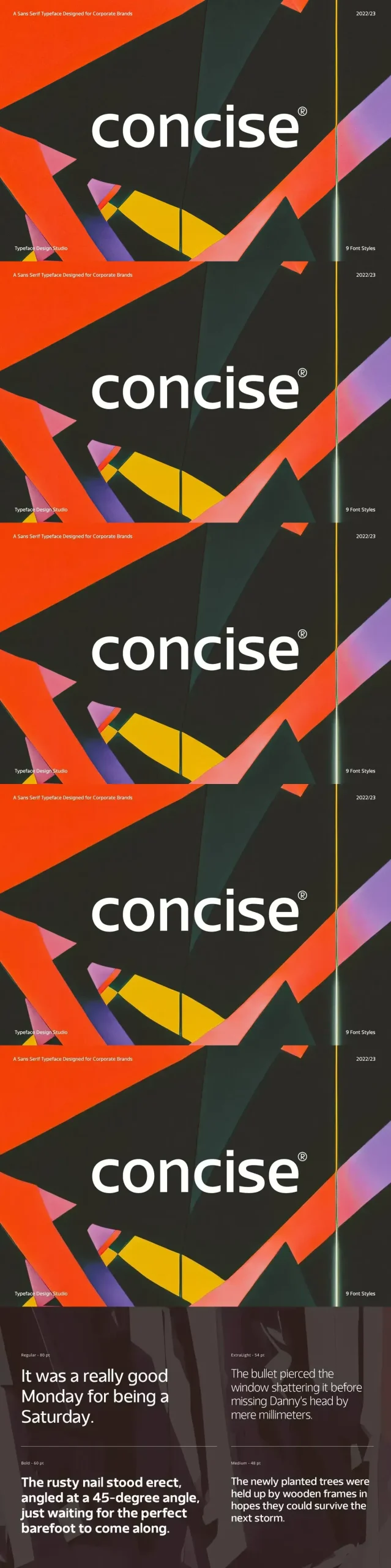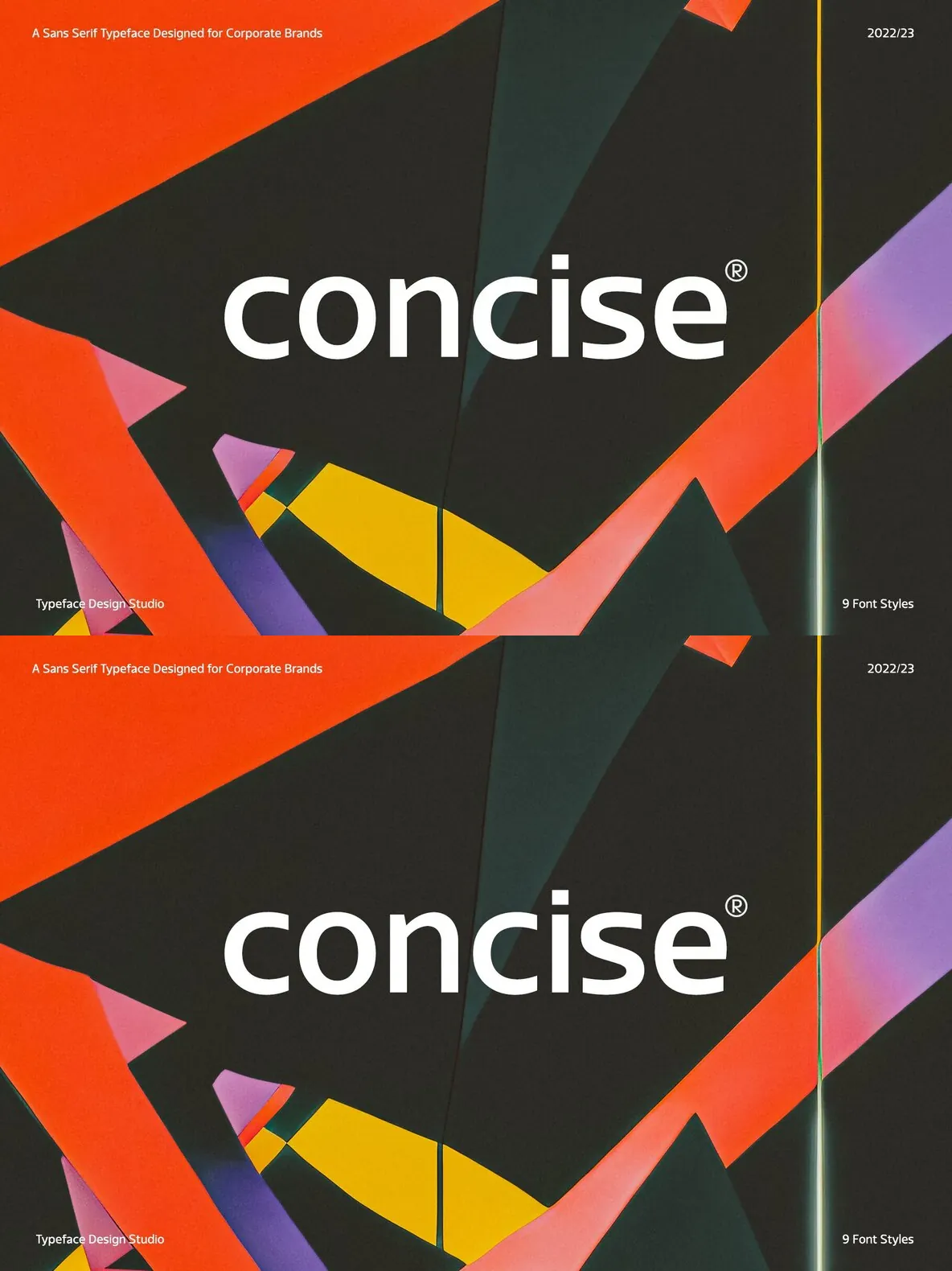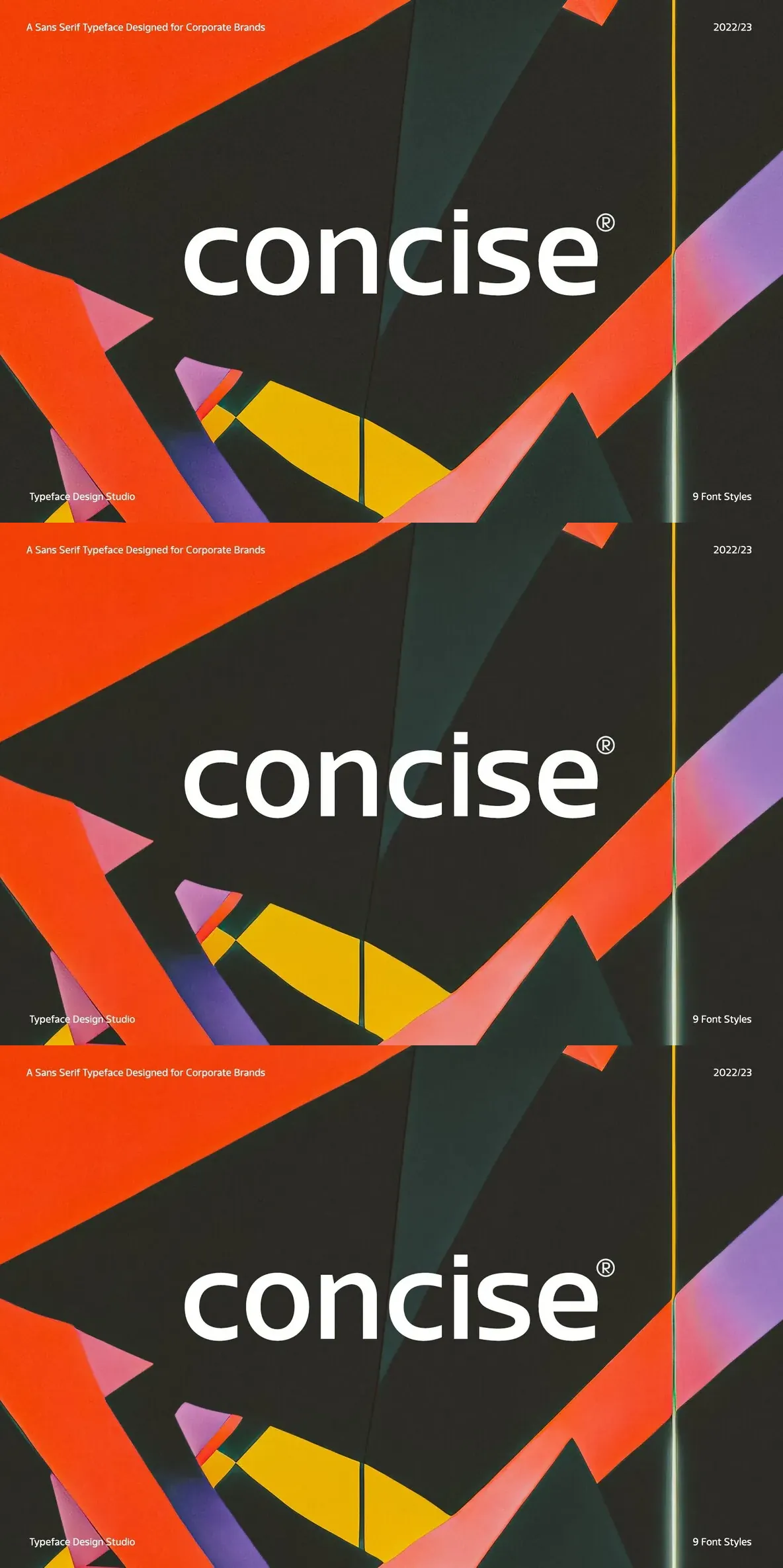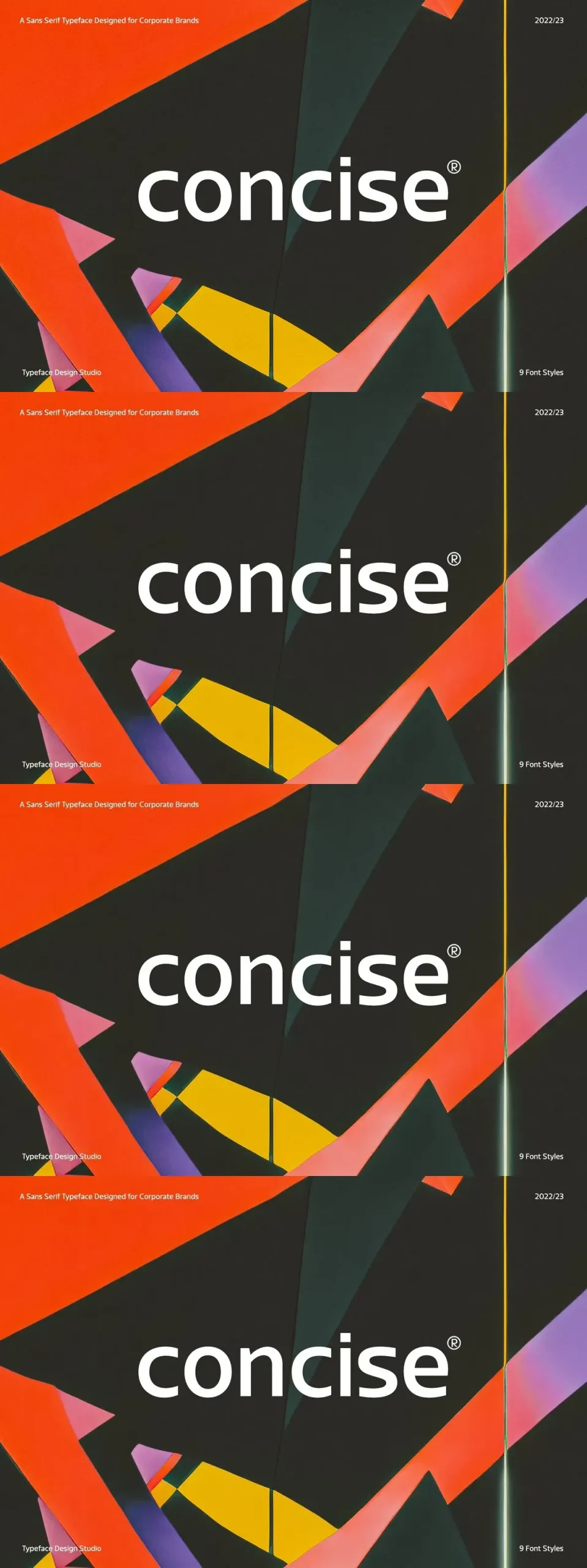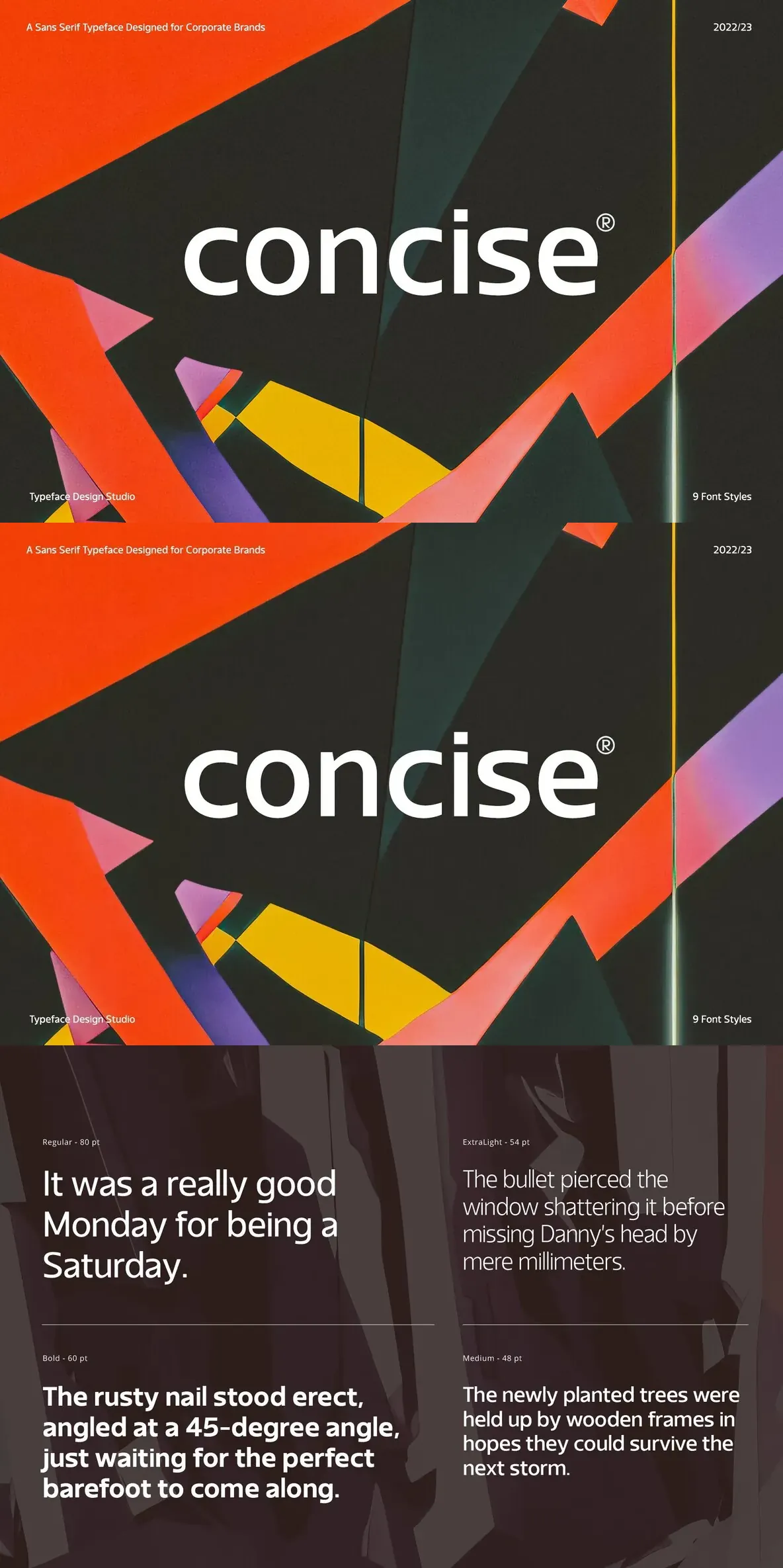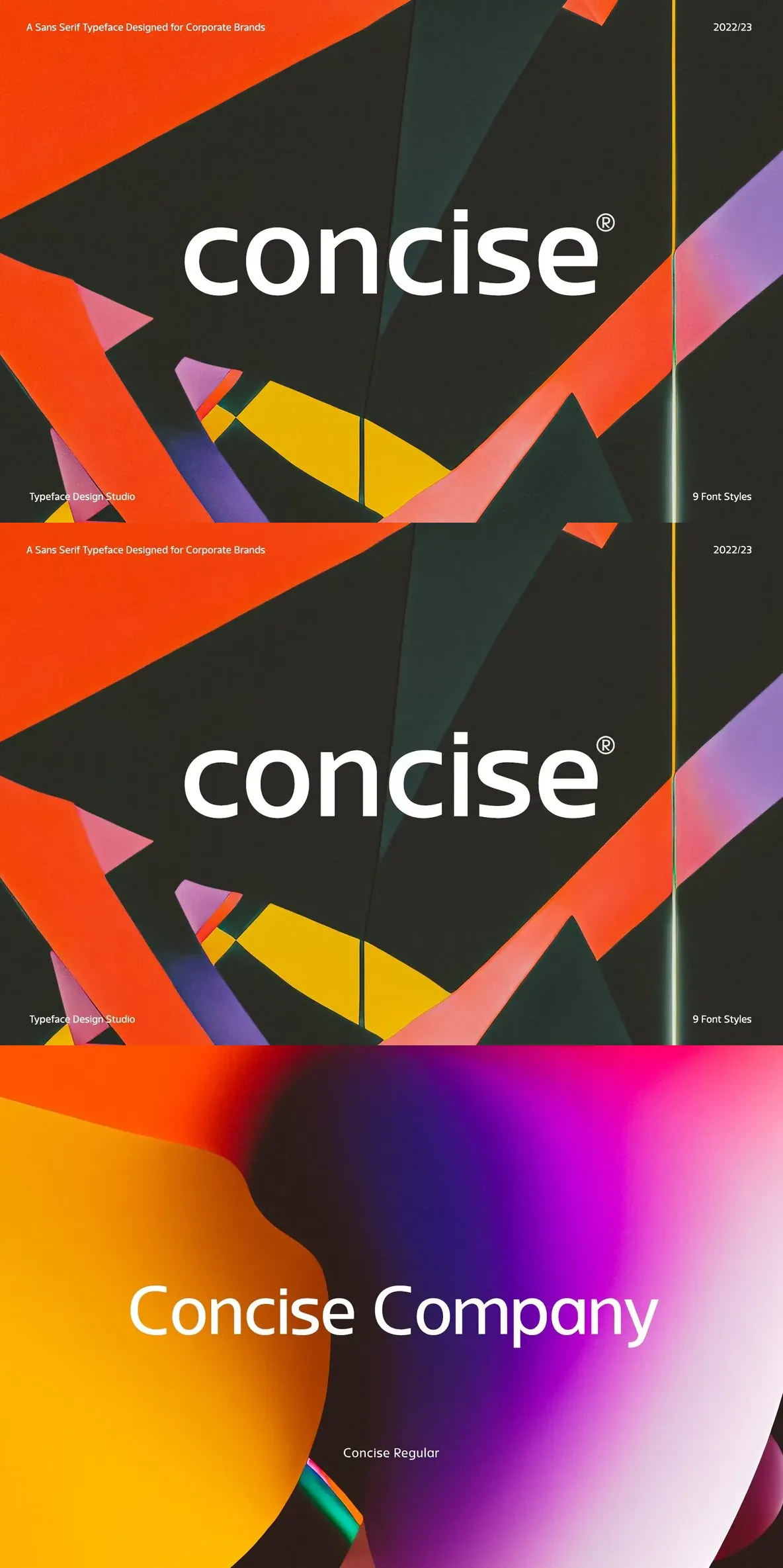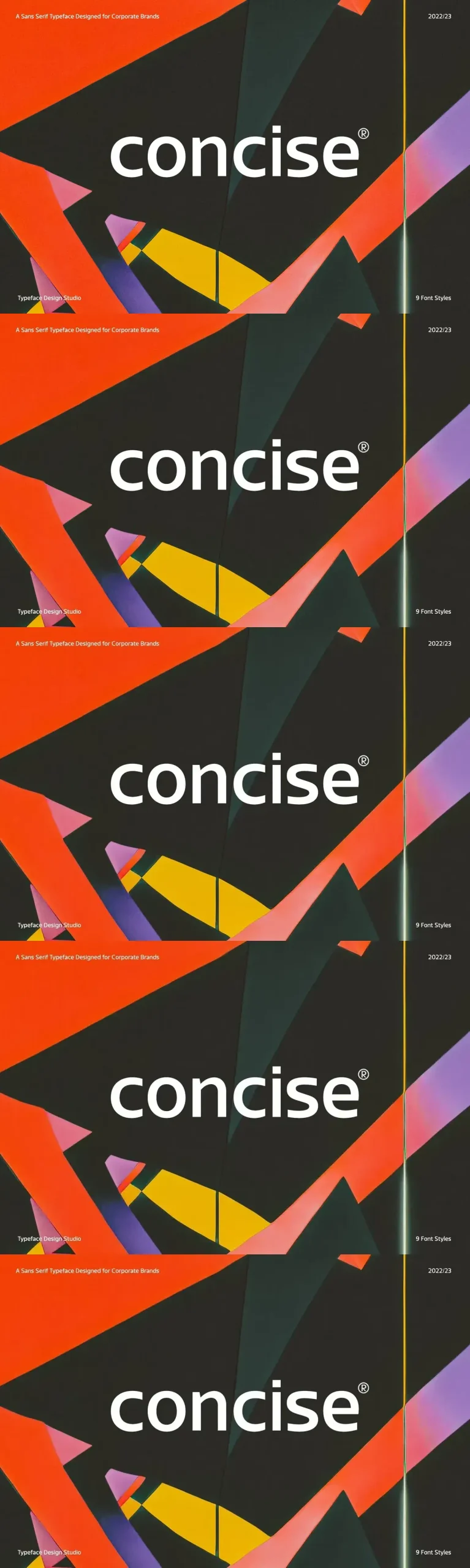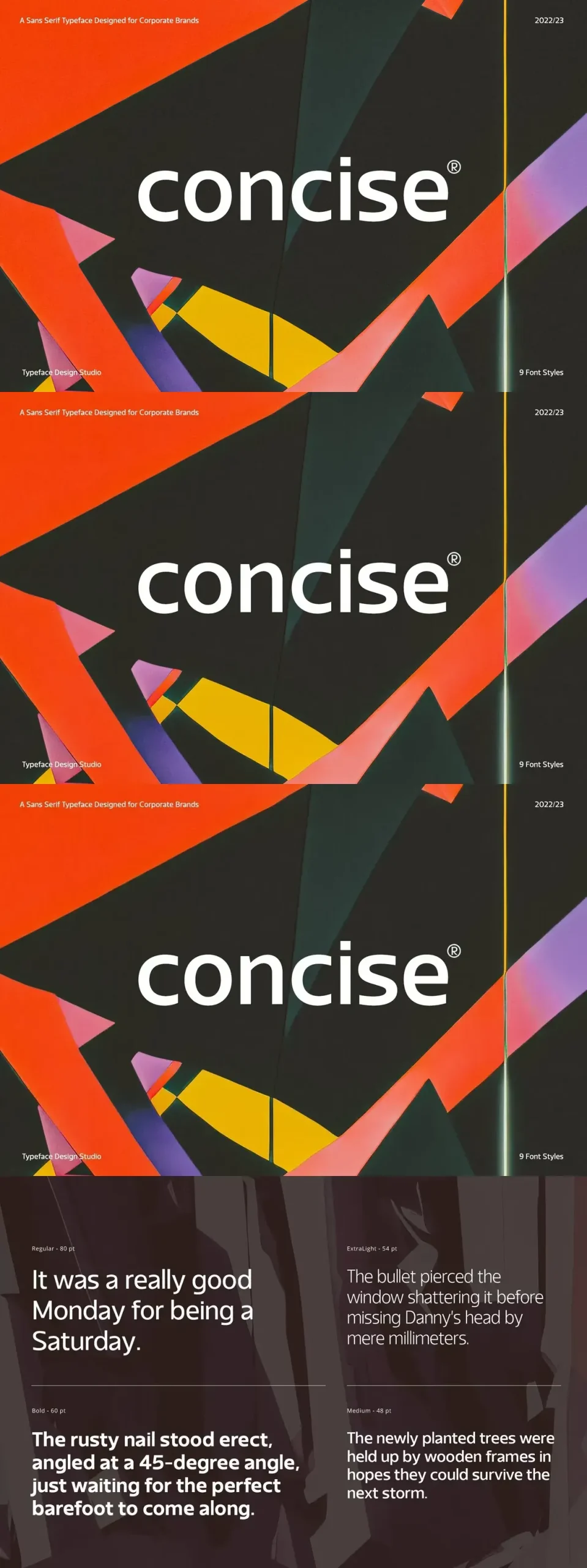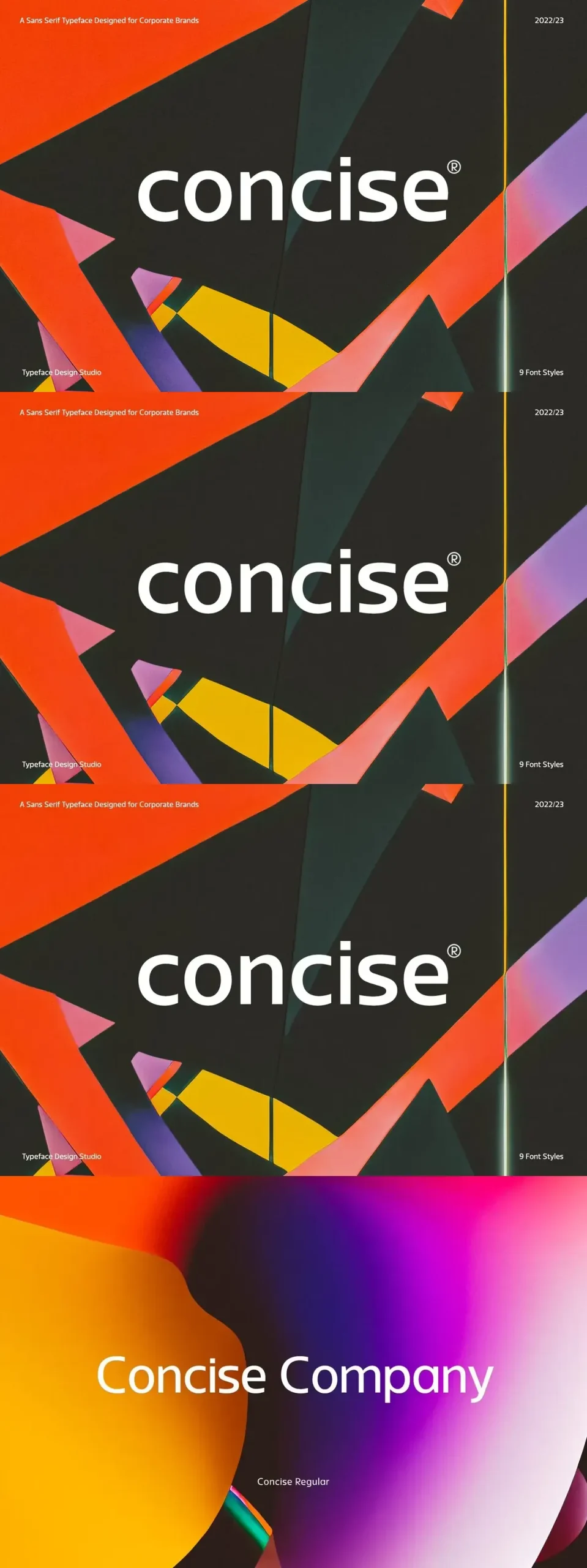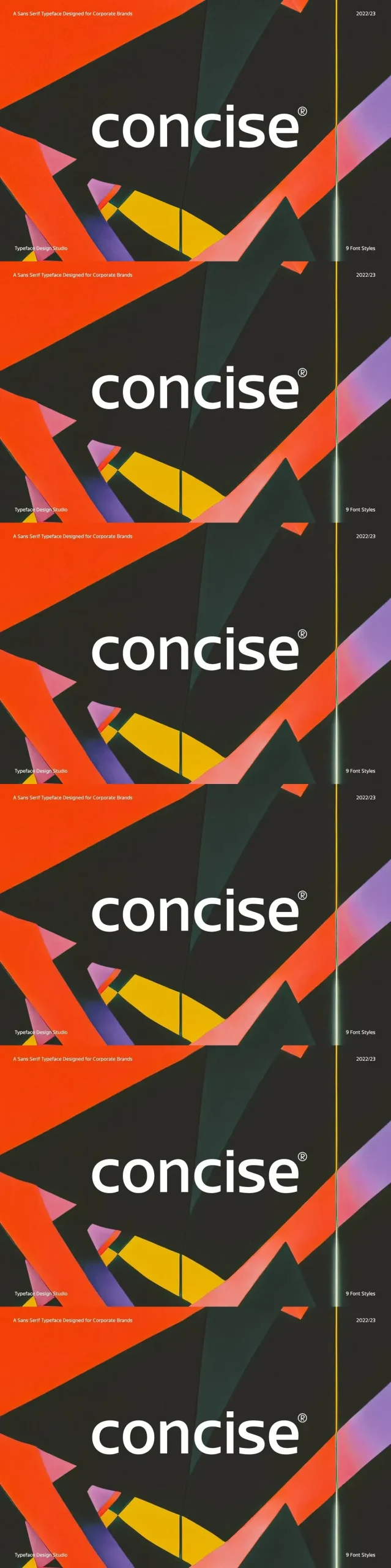
Concise — Clean Lines, Clear Marks
Concise is a modern font family created by the Typeface Design Studio for design studios seeking a sleek typeface for logo and trademark development. It reads cleanly and looks precise, making it a strong choice when the letterforms need to carry a brand identity with confidence.
With nine font weights that range from Thin to Black, Concise gives you a solid span of bold and contemporary options for branding systems and day-to-day design work. It suits a wide variety of branding, trademark, marketing and copyright applications, and it works especially well in digital design projects such as logos, posters, books, apparel, card designs and social media designs. Concise is also easy to combine with other type, so your layouts stay sharp and professional across different creative directions.